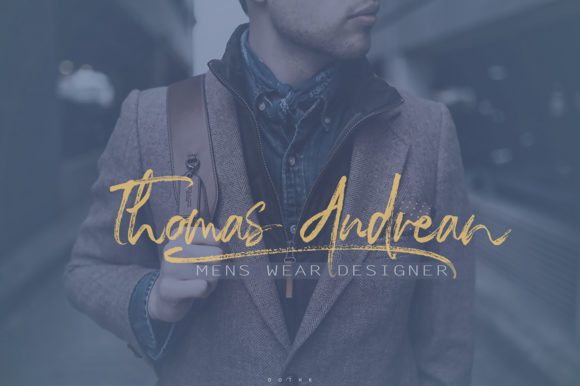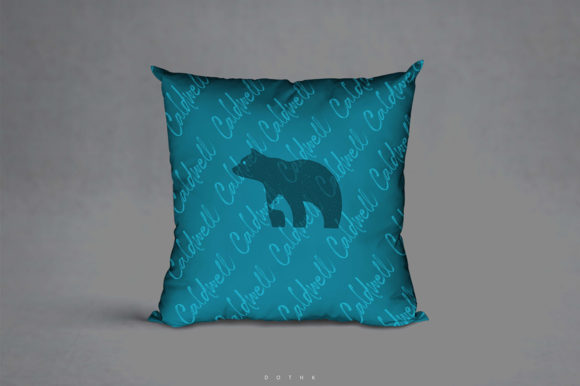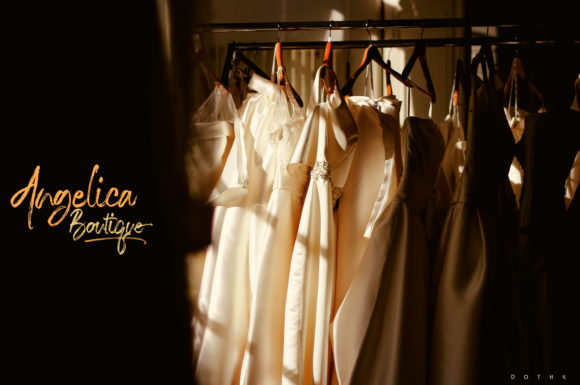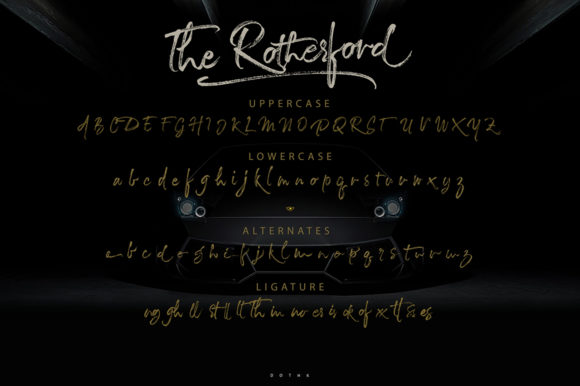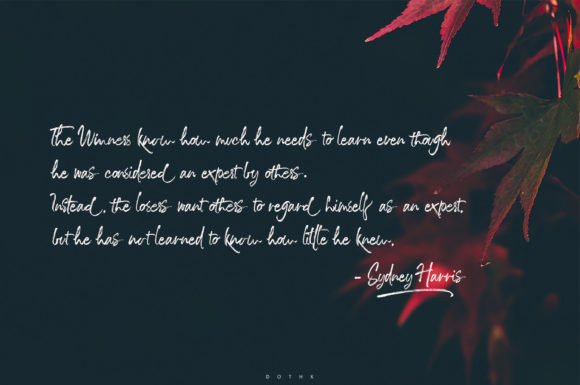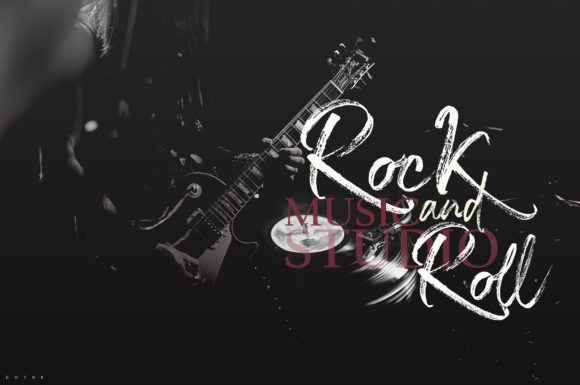
Caldwell Font
About Caldwell Font
Caldwell is a cool brushed handwritten font, organic and interesting looking. Masterfully designed to become a true favorite, this font has the potential to bring each of your creative ideas to the highest level!